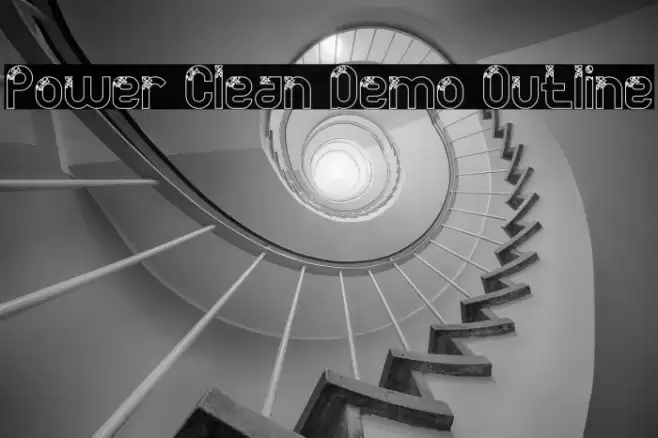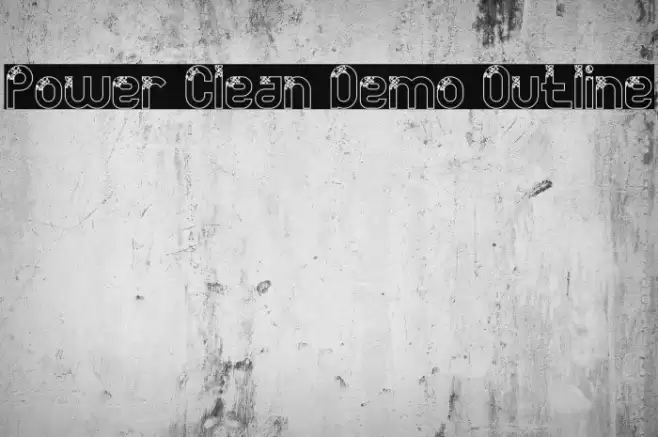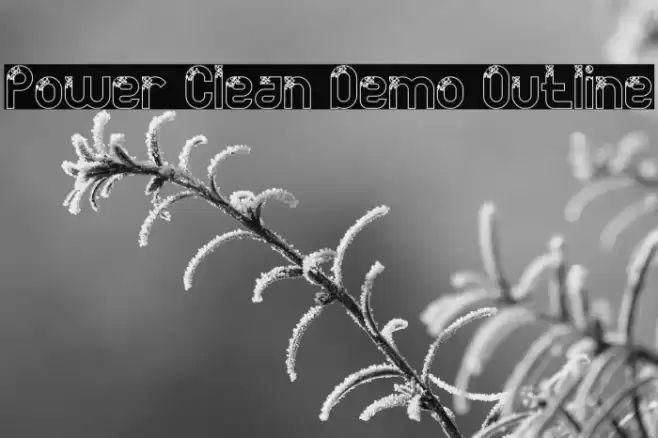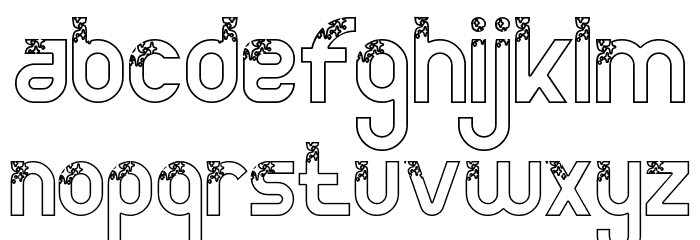
Power Clean Demo Outline Font
Power Clean Demo Outline Description
This font features a unique blend of modern and decorative elements, characterized by its outline style and intricate detailing on certain characters. The uppercase letters are bold and structured, while the lowercase letters maintain a consistent style with a slightly softer appearance. The font includes numbers and a selection of special characters, all maintaining the same decorative outline. The intricate patterns within some letters add a playful and artistic touch, making it stand out for creative projects. The overall design is clean yet visually engaging, suitable for various applications that require a distinctive and eye-catching typeface.
A modern decorative outline font with intricate detailing from Decorative fonts.
- Proposed Projects: Ideal for branding, posters, artistic projects, and any design requiring a standout decorative font.
- Overall Style: Modern, Decorative